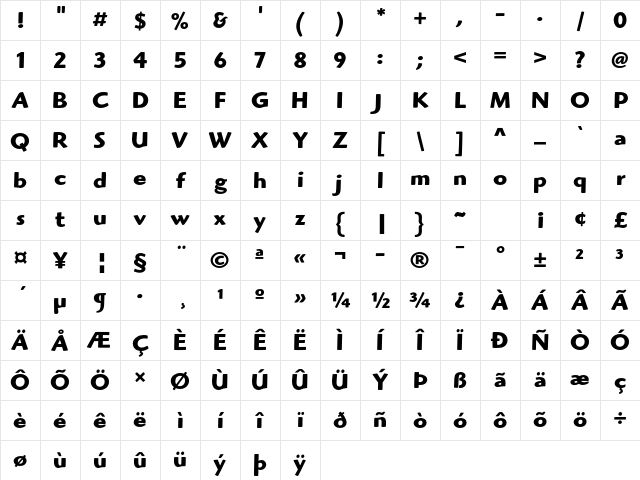
Highlander ITC Std Bold
Designer: David Farey
Design Context for Highlander ITC Std
Highlander ITC Std is a composed and adaptable typeface that performs quietly and consistently across a wide range of design contexts. Its bold stroke weight gives it real presence on the page.